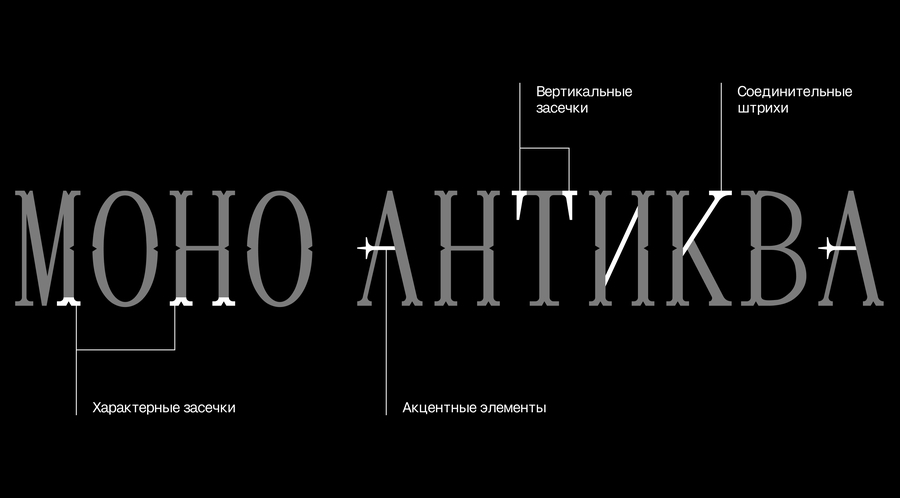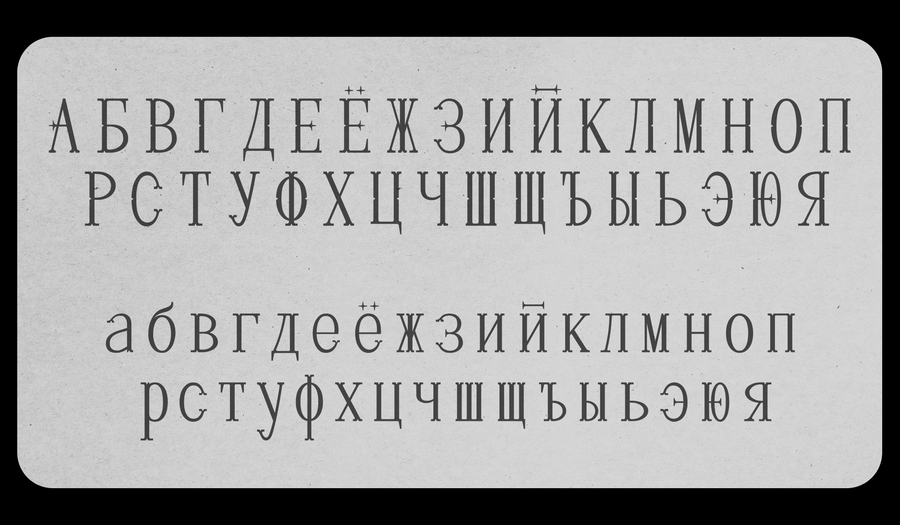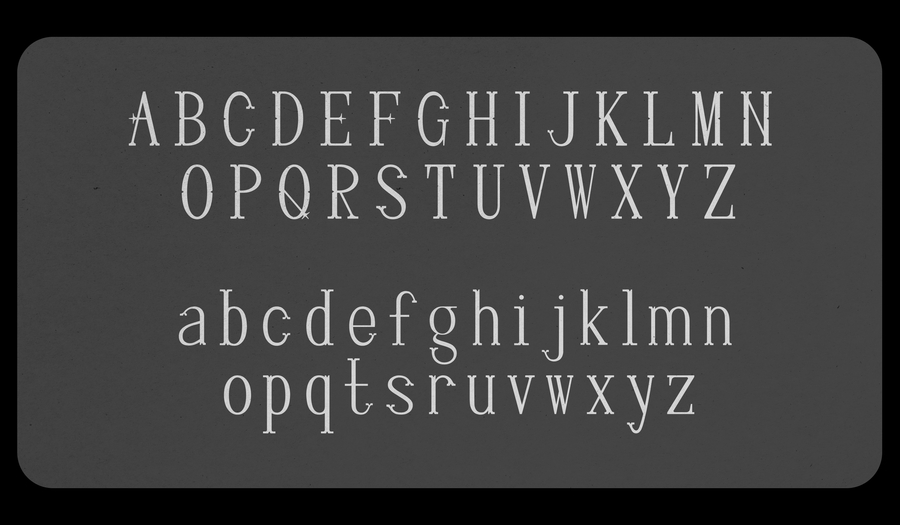
Clavis Mono —
mono-shire antique inspired by the shape of an old key beard — part with unique protrusions and tips that interact with the kicks inside the lock.
Rebranding of the Paris Museum of the Middle Ages
Musee de Cluny
Analysis of the museum’s social media shows that they mostly use photographs. with the possibility of making visual presentation more creative and interesting. It is important that the design be attractive but remain neutral to a wide audience of the museum.